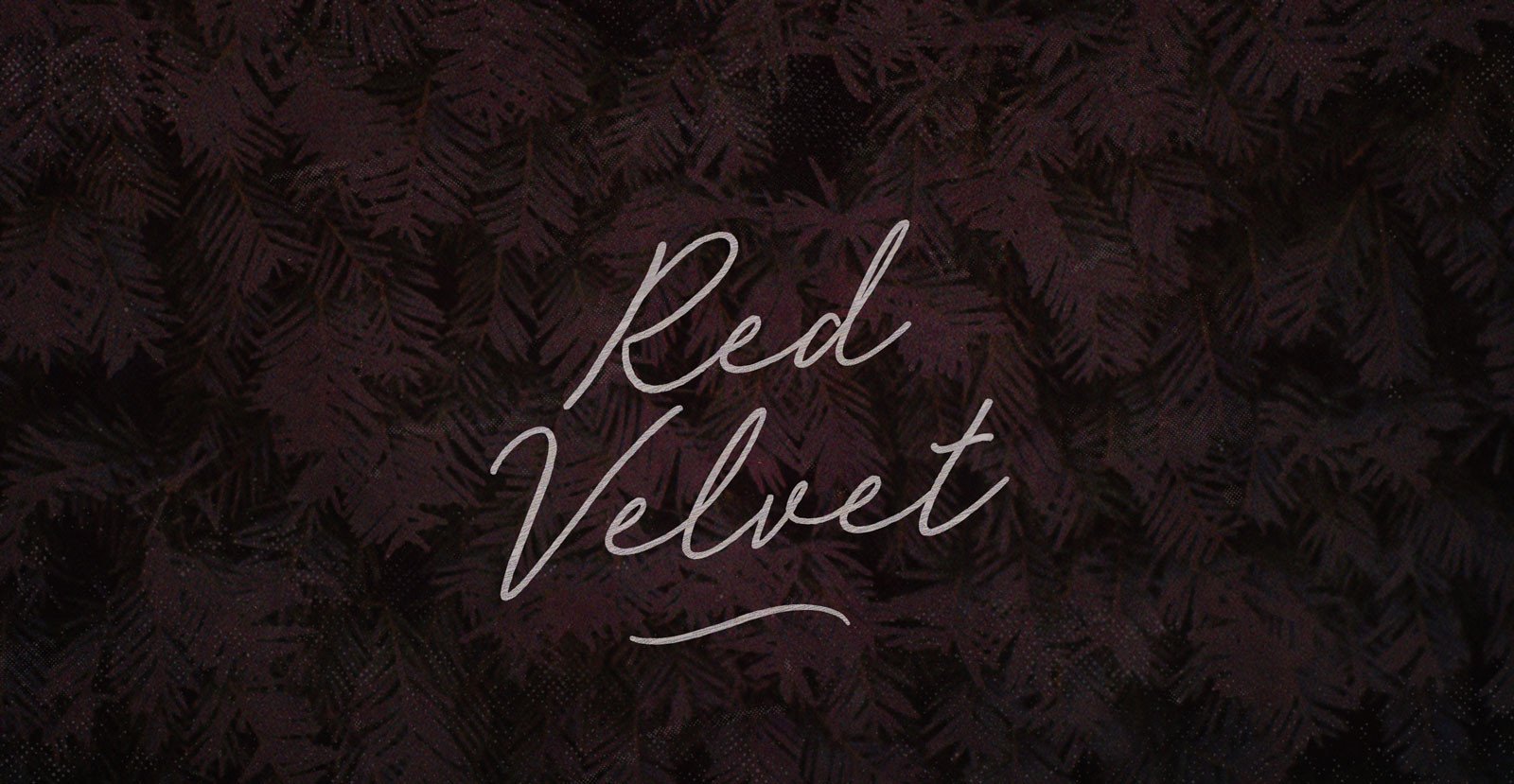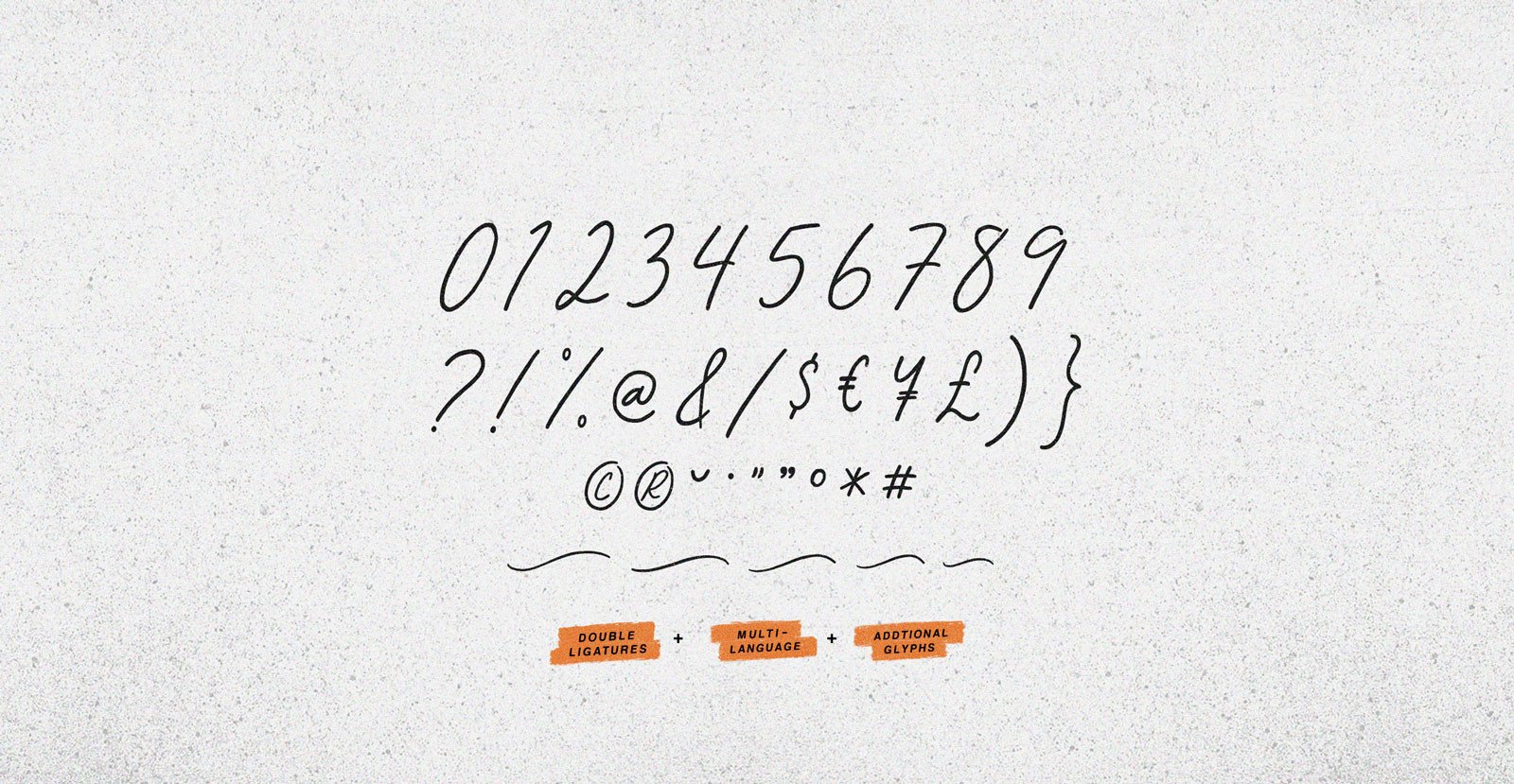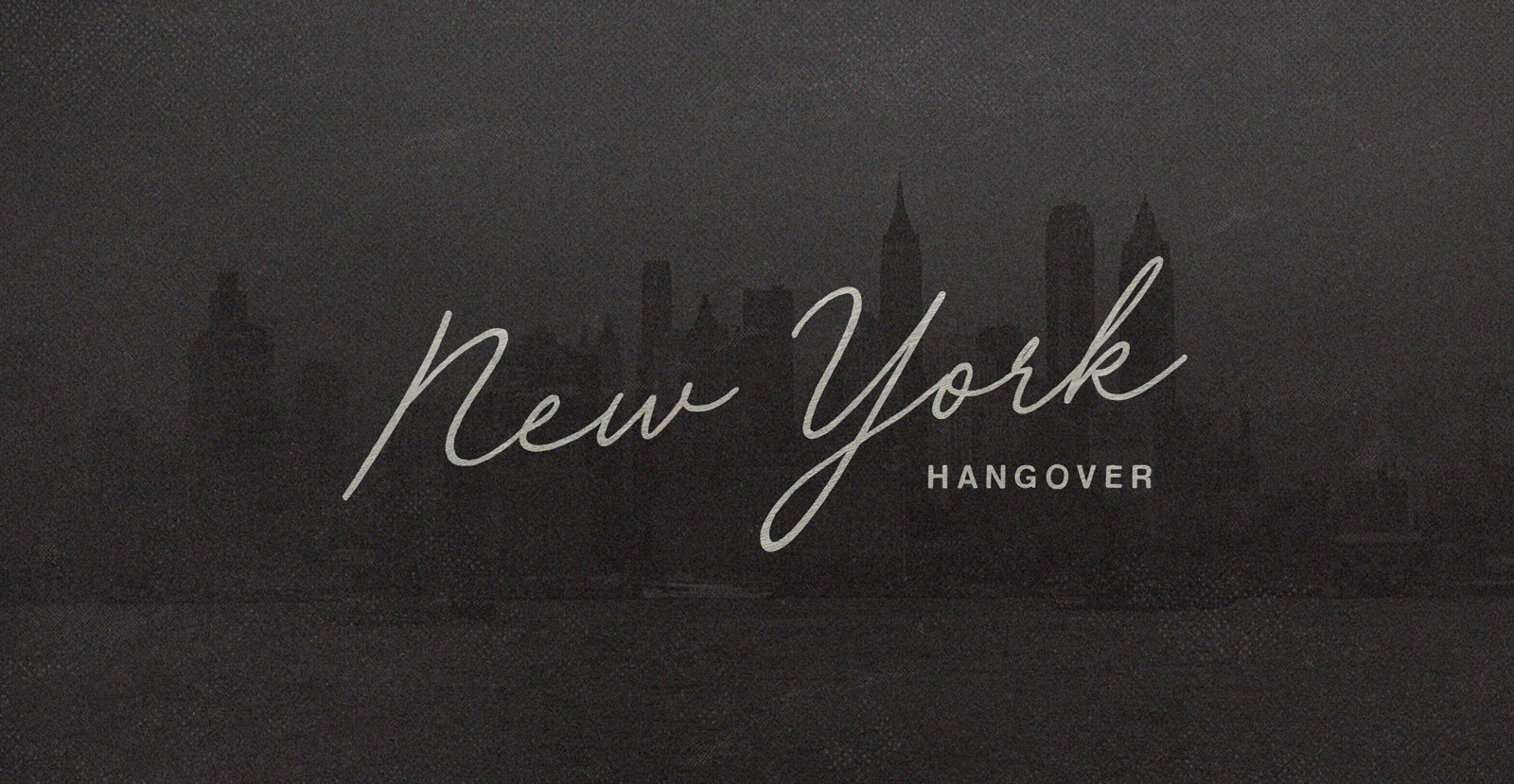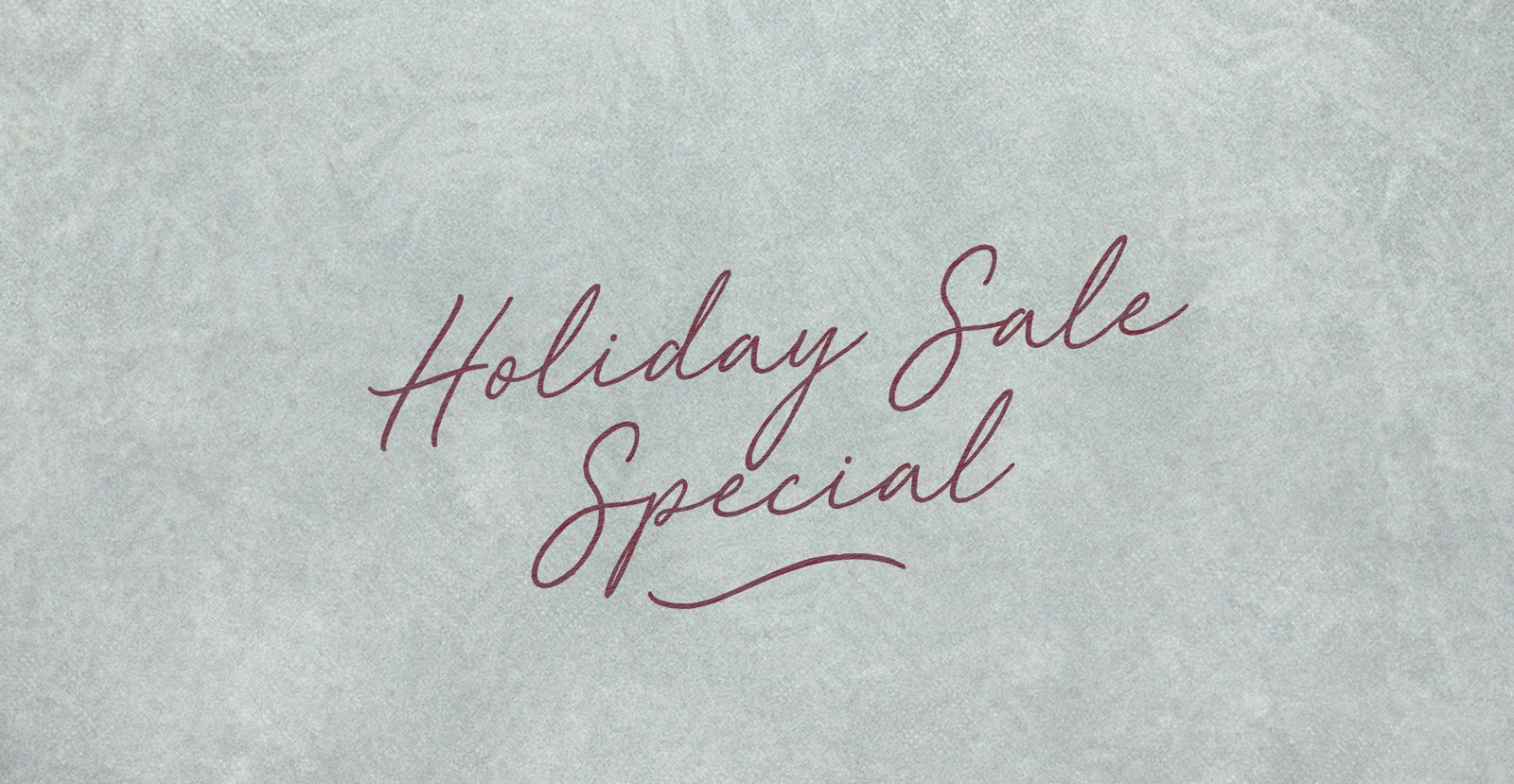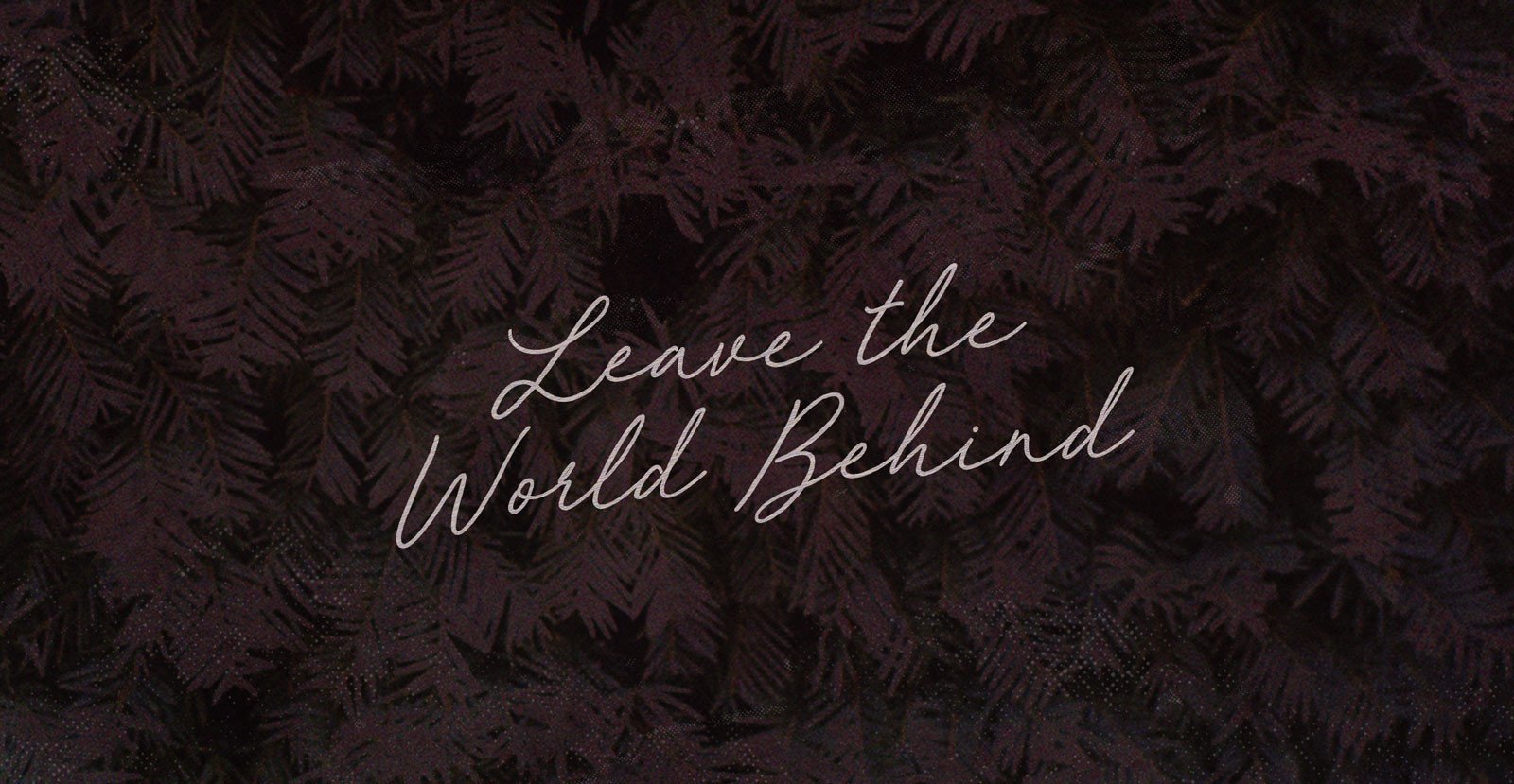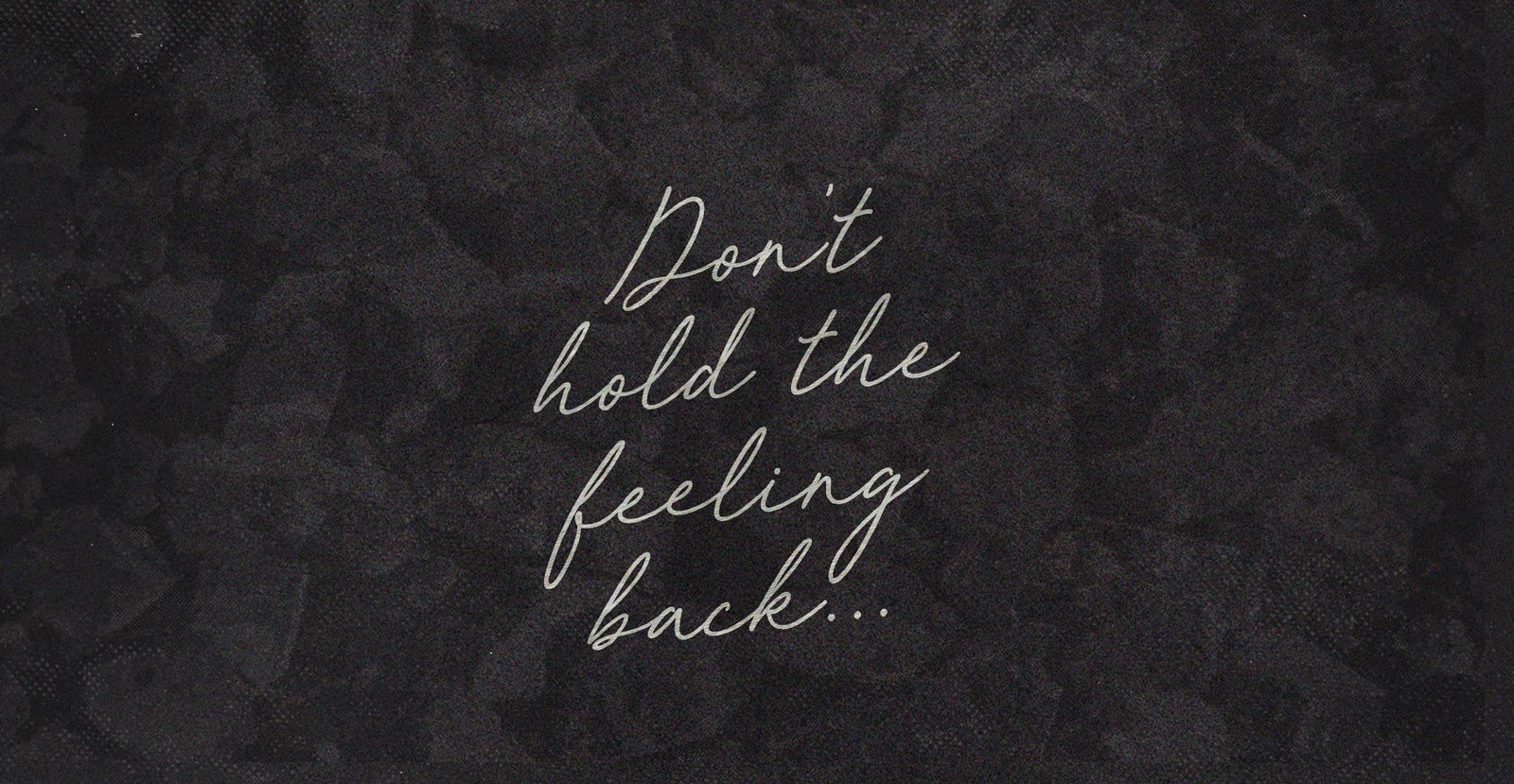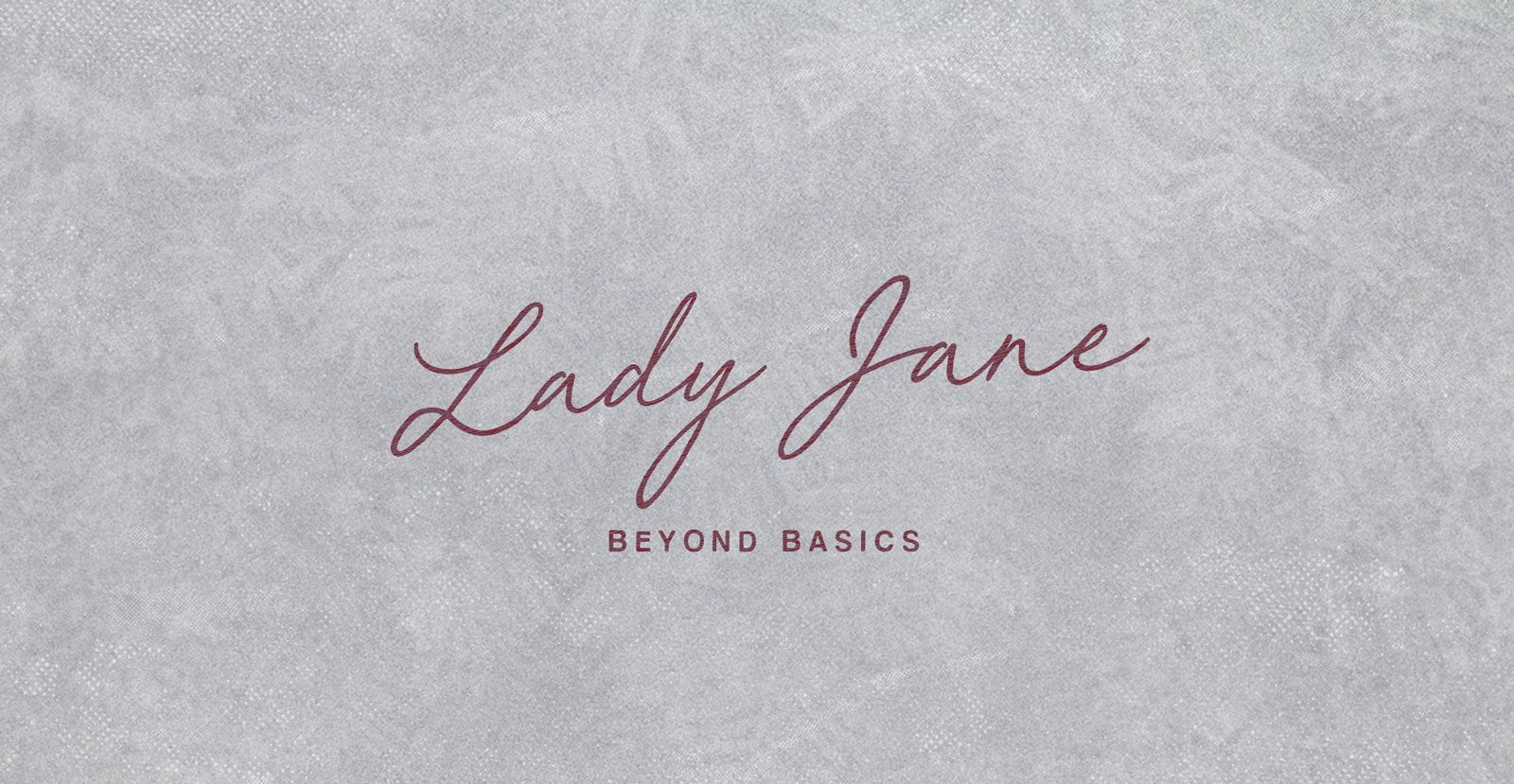
Red Velvet
A vermilion confection, favored by Salisbury House, with lineage to the Eaton's Original. Red Velvet: Flour, sugar, eggs, Crisco and cochineal. Remarkable not only for its insect coloring, but for its fuzzy tongue-feel.